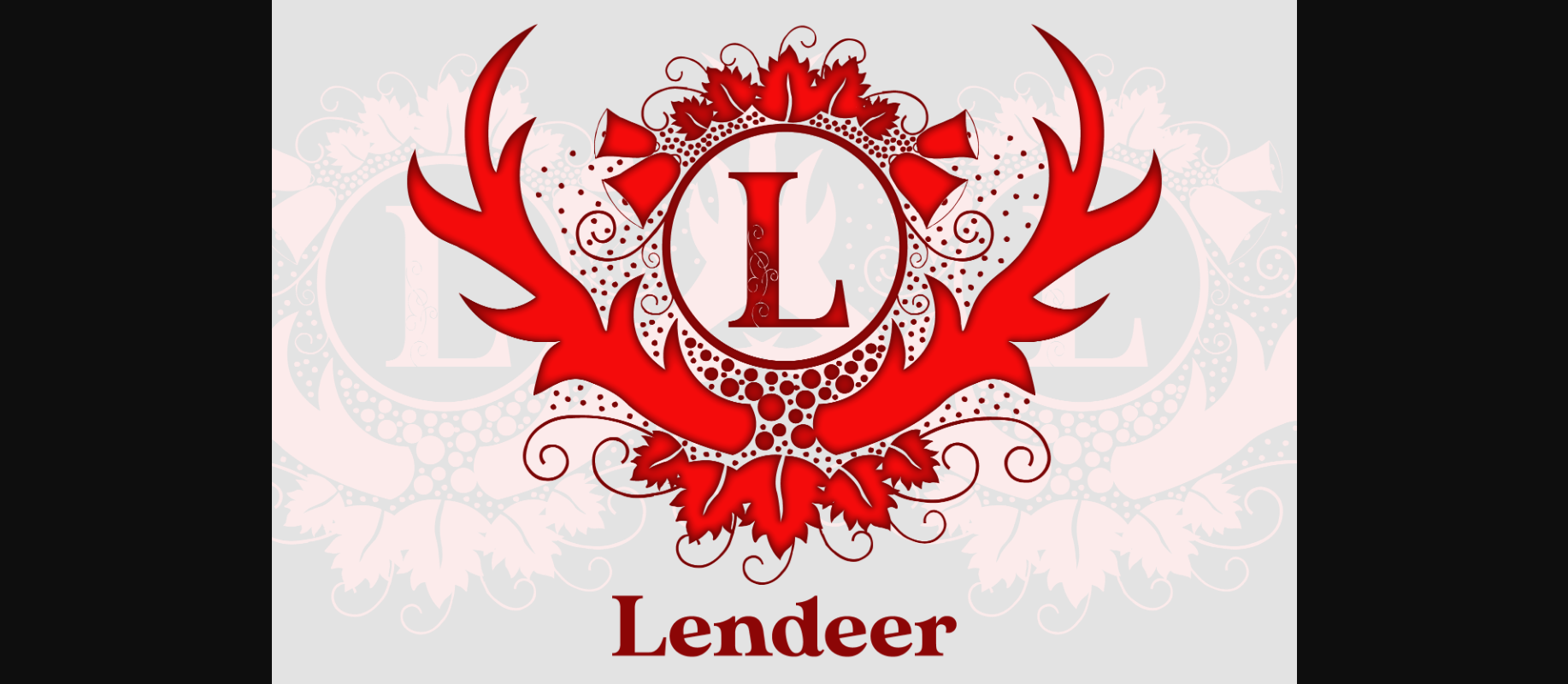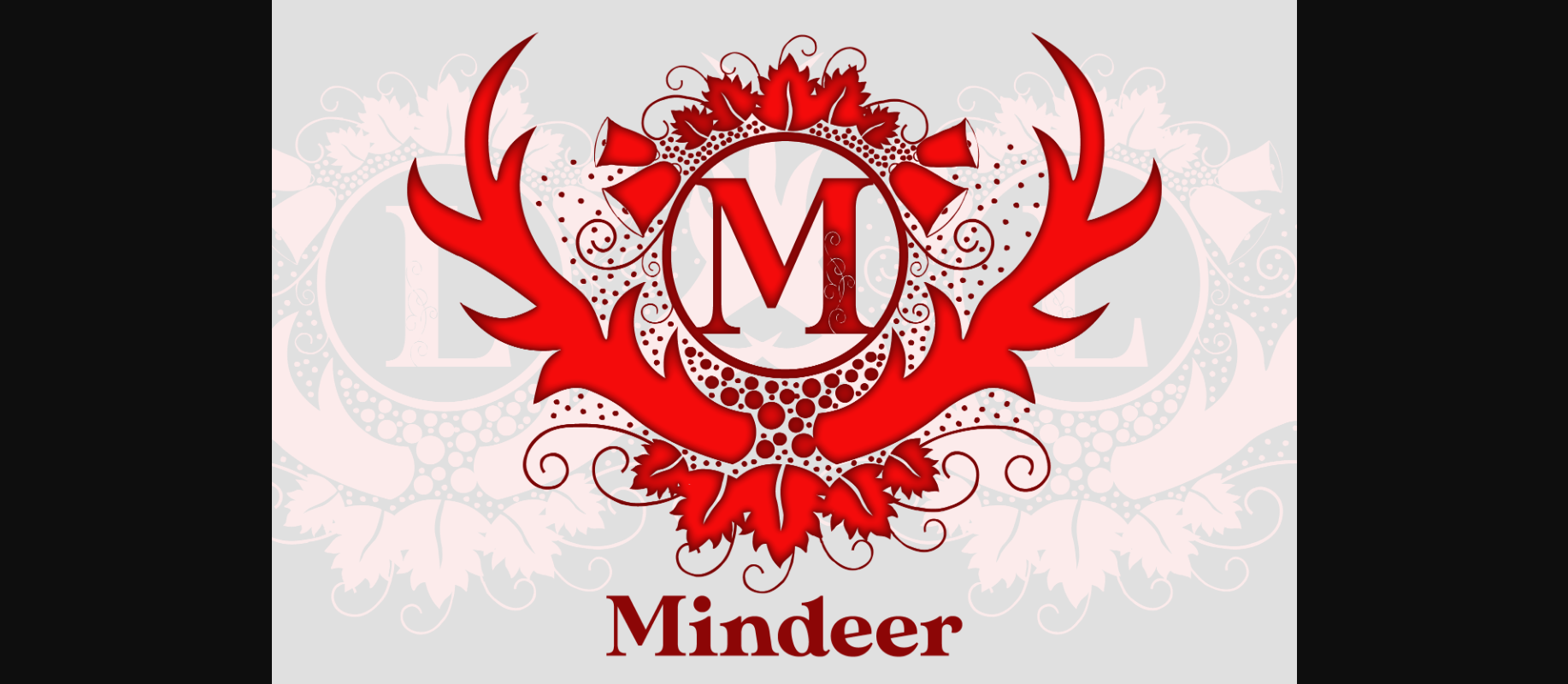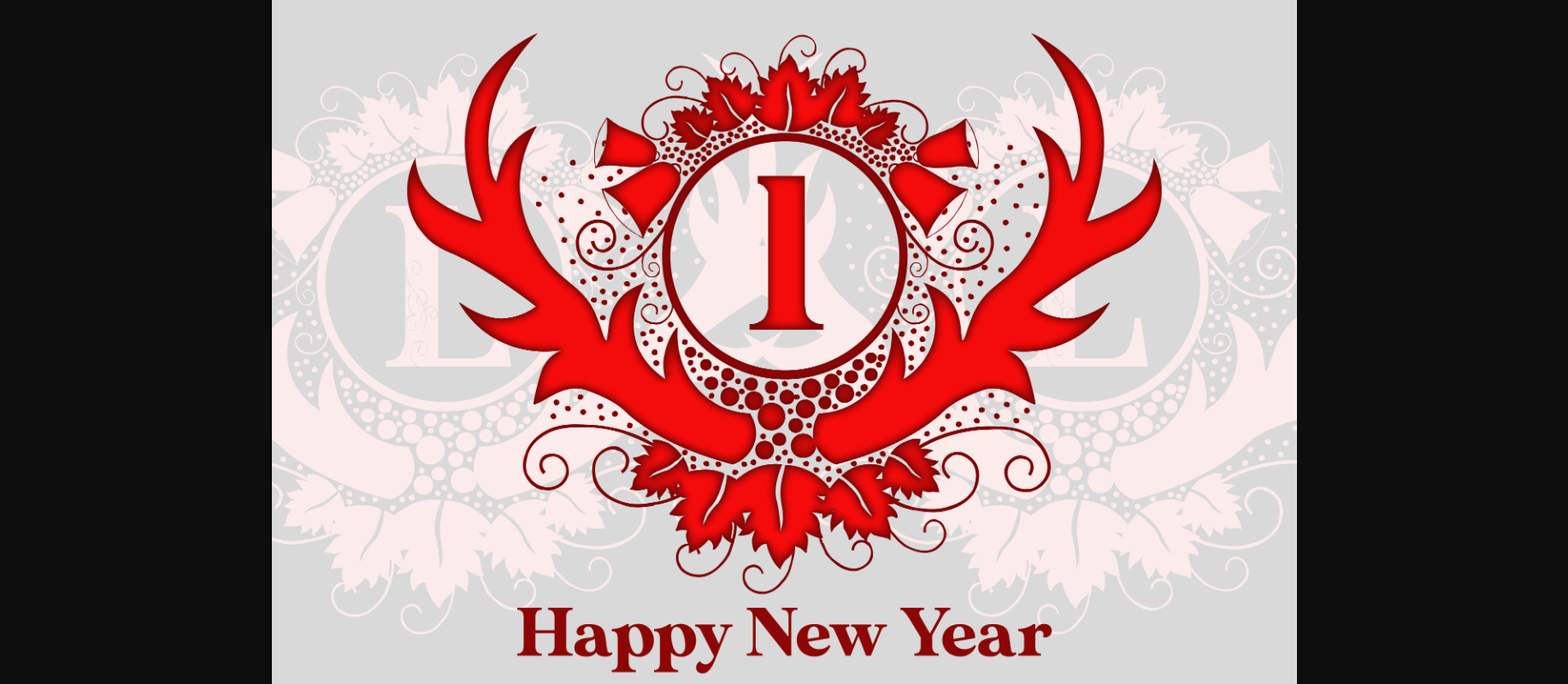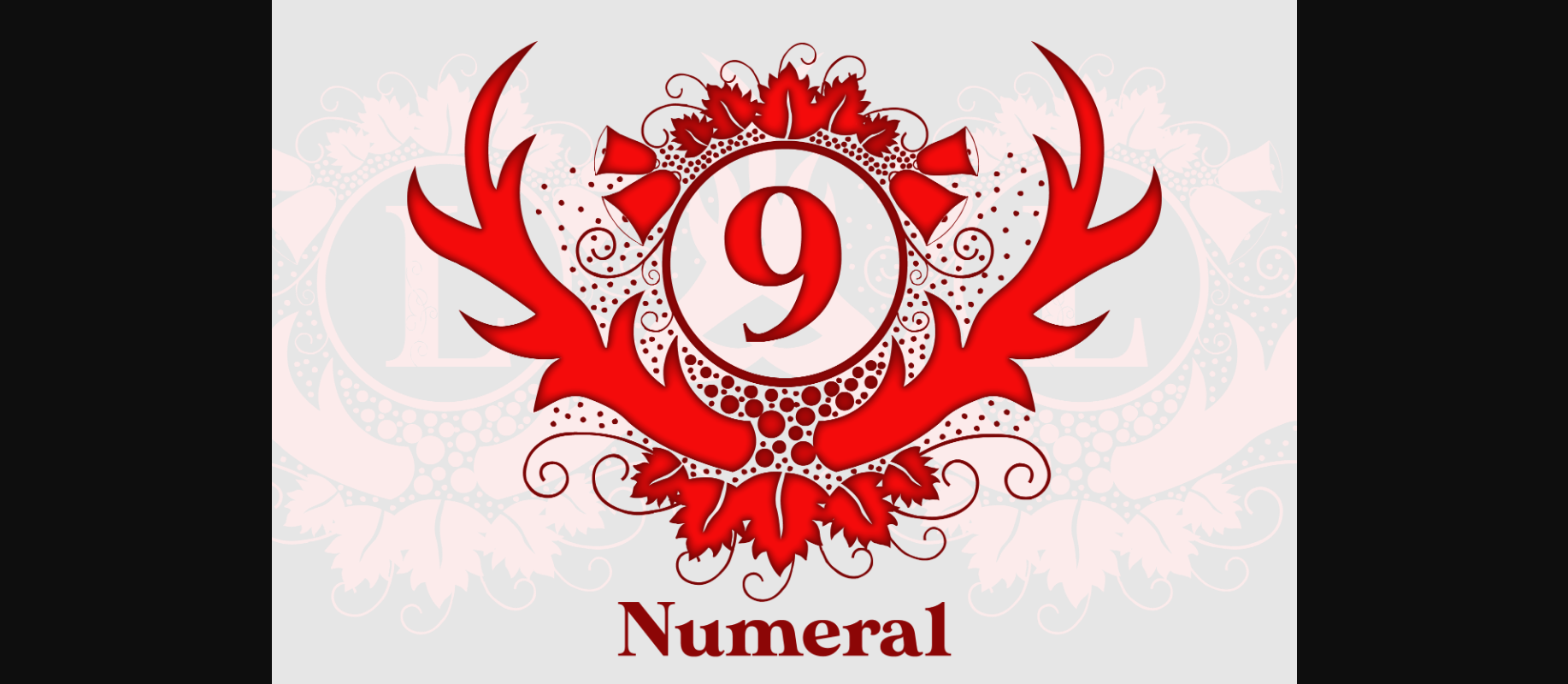
About Lendeer Font
Lendeer is a festive and highly detailed decorative font, with characters that resemble the antlers of a deer. Whether you’re looking for fonts for Instagram or calligraphy scripts for DIY projects, this font will turn any creative idea into a true piece of art!